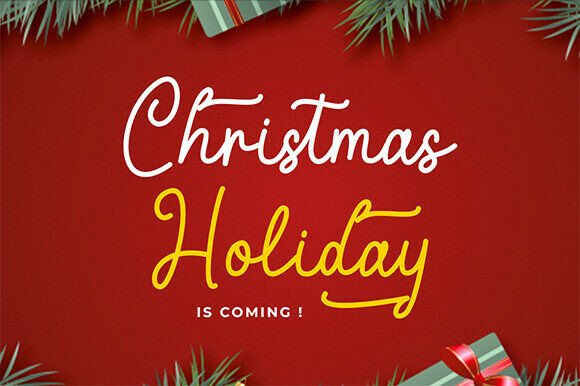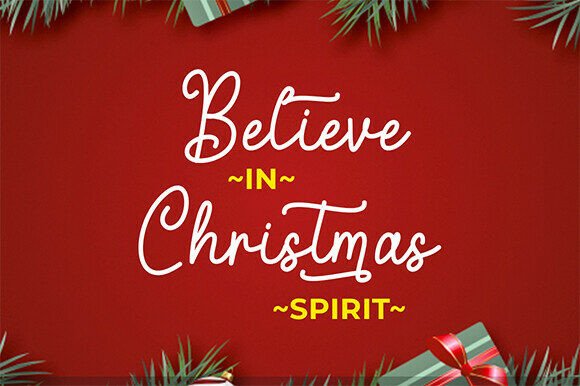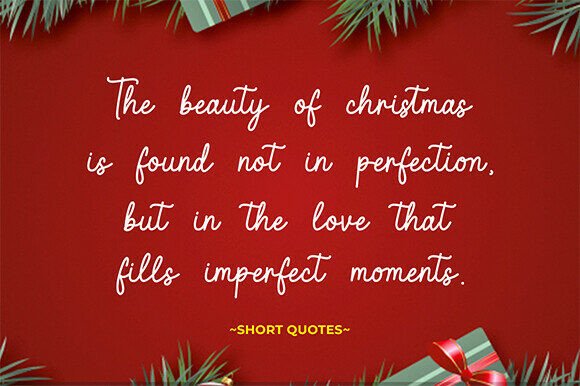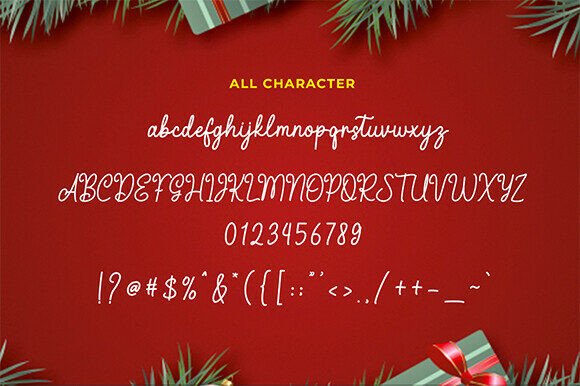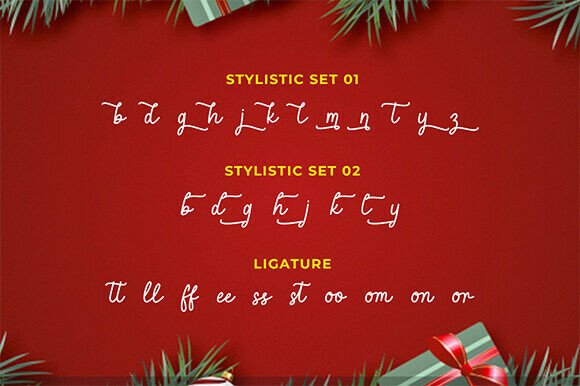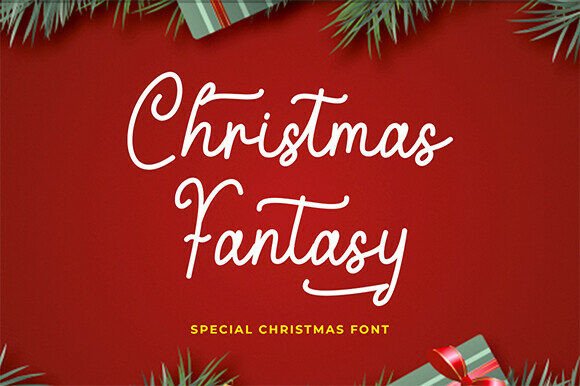
🎄 Christmas Fantasy Font: A Whimsical Script Typeface for the Holiday Season
As the holiday season approaches, designers and crafters are on the lookout for the perfect typography to add a touch of magic to their projects. Look no further than the Christmas Fantasy font, a beautifully handwritten script typeface that embodies the joy and wonder of Christmas. With its smooth, flowing lines and elegant loops, this font is sure to become an instant classic for any holiday-themed project.
A Warm and Welcoming Vibe
The Christmas Fantasy font exudes a warm, welcoming vibe that perfectly captures the spirit of the holiday season. Its unique, connected script style features delightful swashes and elegant loops that give it a whimsical, authentic hand-lettered feel. This font is designed to add a touch of charm and sophistication to any design, making it perfect for a wide range of uses, from elegant greeting cards and whimsical gift tags to eye-catching social media posts and festive branding.
A Comprehensive Set of Characters
The Christmas Fantasy typeface includes a comprehensive set of upper and lowercase characters, numerals, and punctuation, ensuring that you have everything you need to create stunning holiday designs. The font also features potential ligatures and stylistic alternates, allowing you to add extra flourish to your designs and make them truly unique.
One of the standout features of the Christmas Fantasy font is its versatility. Whether you’re creating elegant greeting cards, whimsical gift tags, or eye-catching social media posts, this font is sure to deliver. Its smooth, flowing lines and elegant loops make it perfect for a wide range of design applications, from festive branding to holiday-themed packaging.
The Christmas Fantasy font is a must-have for designers and crafters looking to add a touch of magic to their holiday projects. With its unique, connected script style and comprehensive set of characters, this font is sure to become a go-to for anyone looking to create stunning holiday designs. Whether you’re a professional designer or a crafter looking to add a personal touch to your holiday gifts, the Christmas Fantasy font is the perfect choice.
Tips for Using the Christmas Fantasy Font
To get the most out of the Christmas Fantasy font, here are a few tips to keep in mind:
- Use it as a display font to add maximum impact to your holiday designs.
- Don’t be afraid to get creative with the font’s ligatures and stylistic alternates to add extra flourish to your designs.
- Use it in combination with other fonts to create a unique and eye-catching design.
| Font Name | Christmas Fantasy Font |
| Author | Bluestype Studio |
The Christmas Fantasy font is a beautifully handwritten script typeface that perfectly captures the joy and wonder of the holiday season. With its smooth, flowing lines, elegant loops, and comprehensive set of characters, this font is sure to become an instant classic for any holiday-themed project. Whether you’re a designer or crafter, the Christmas Fantasy font is a must-have for adding a touch of magic to your holiday designs.